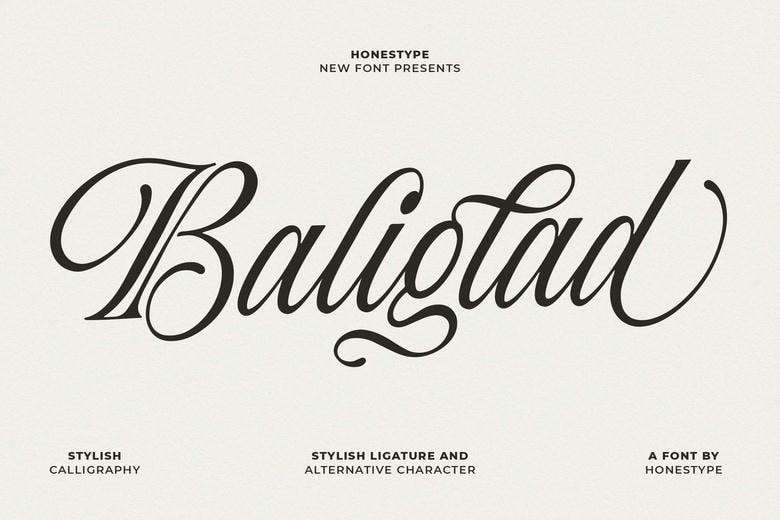
Baliglad Font
Baliglad is a calligraphy script font that combines classic elegance with a modern touch. Its smooth curves and graceful strokes give your designs a handwritten look and add a sense of luxury.
This font includes stylish ligatures and alternate characters, so you can easily create unique and expressive typography. Each letter is designed for balance, readability, and harmony.
Baliglad is a great fit for many creative projects, including branding, logos, wedding invitations, fashion labels, social media graphics, and premium packaging. Its classic calligraphy style makes it a versatile option for designer.
Baliglad Stylish Calligraphy Font